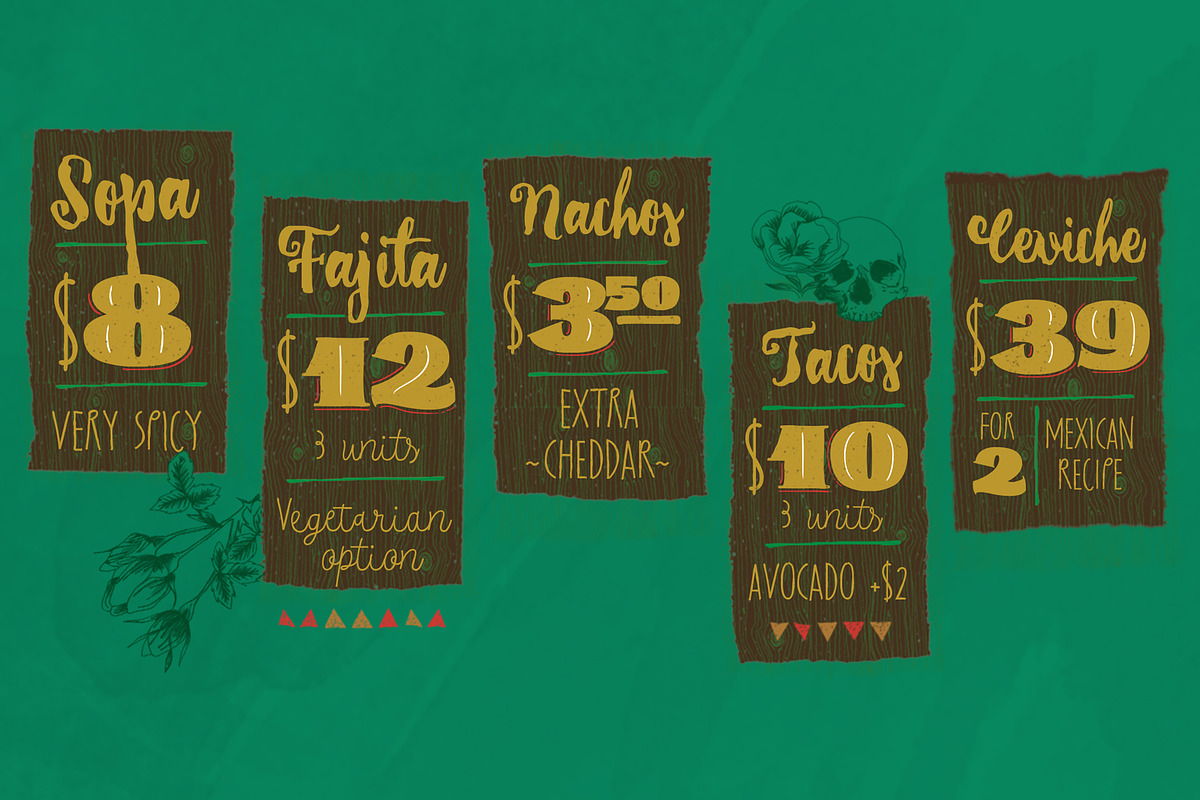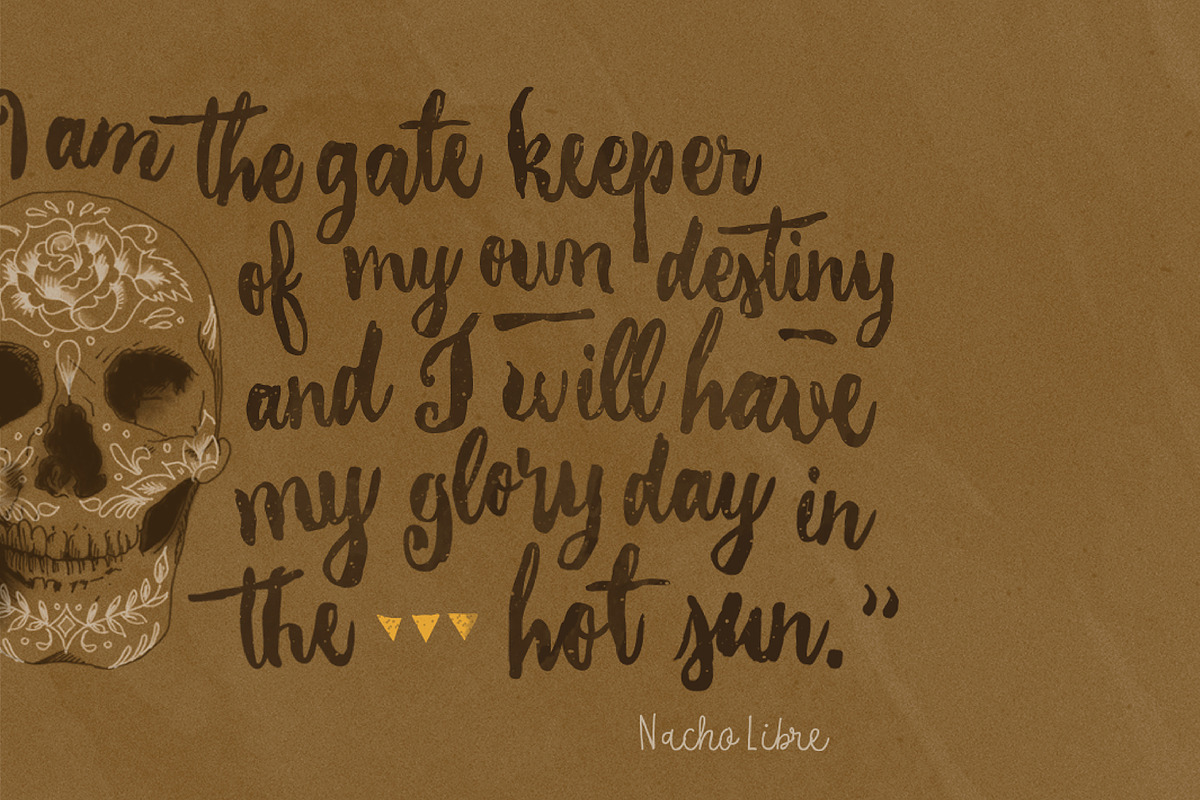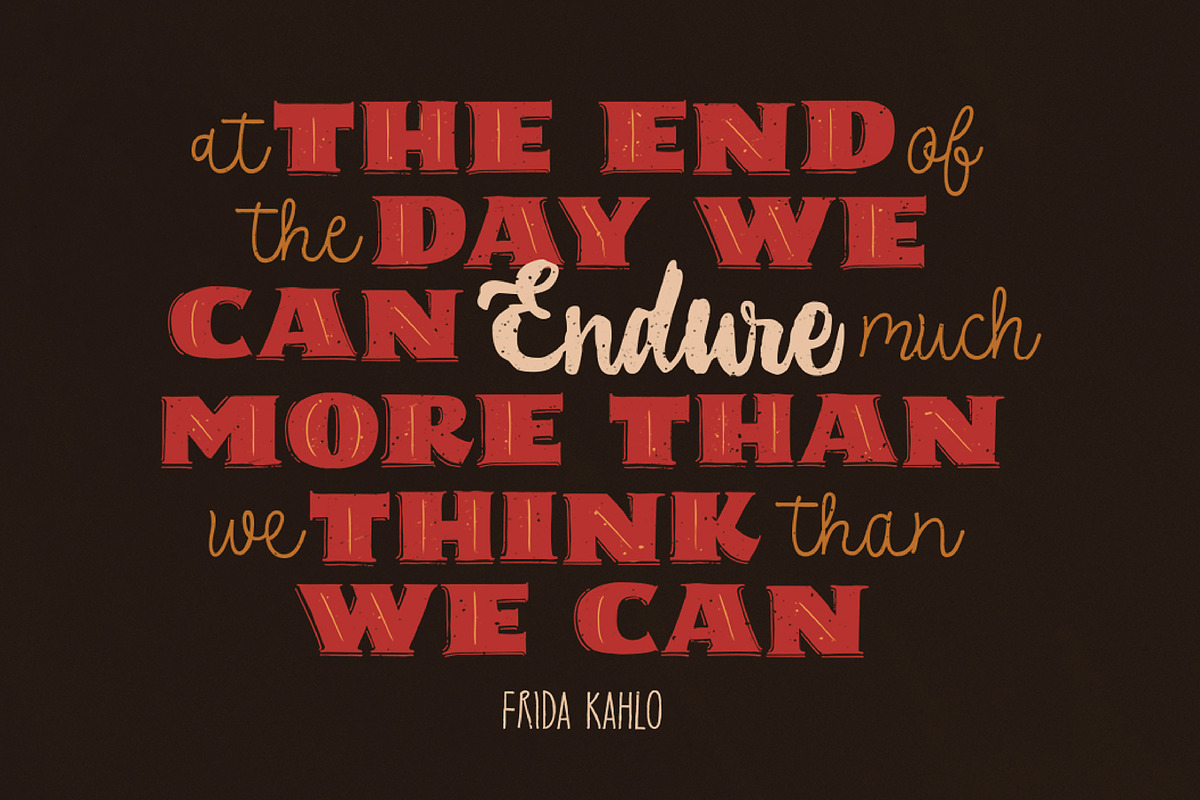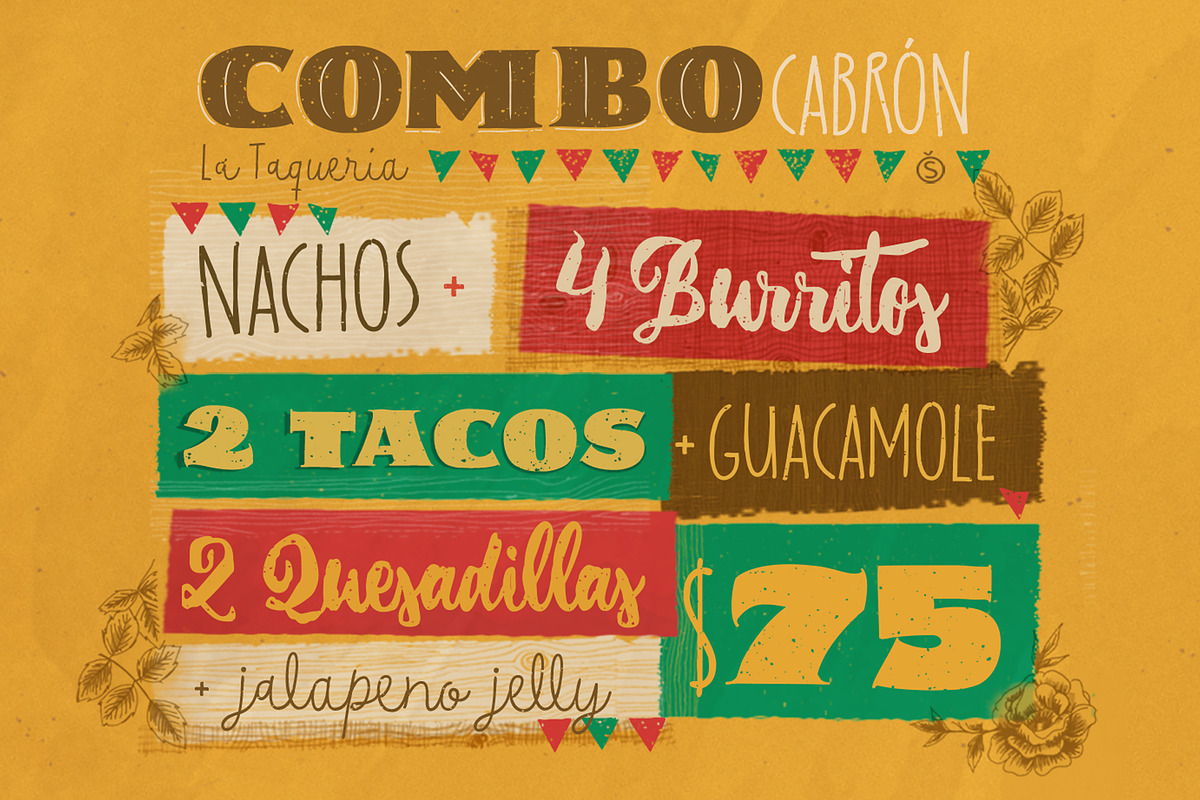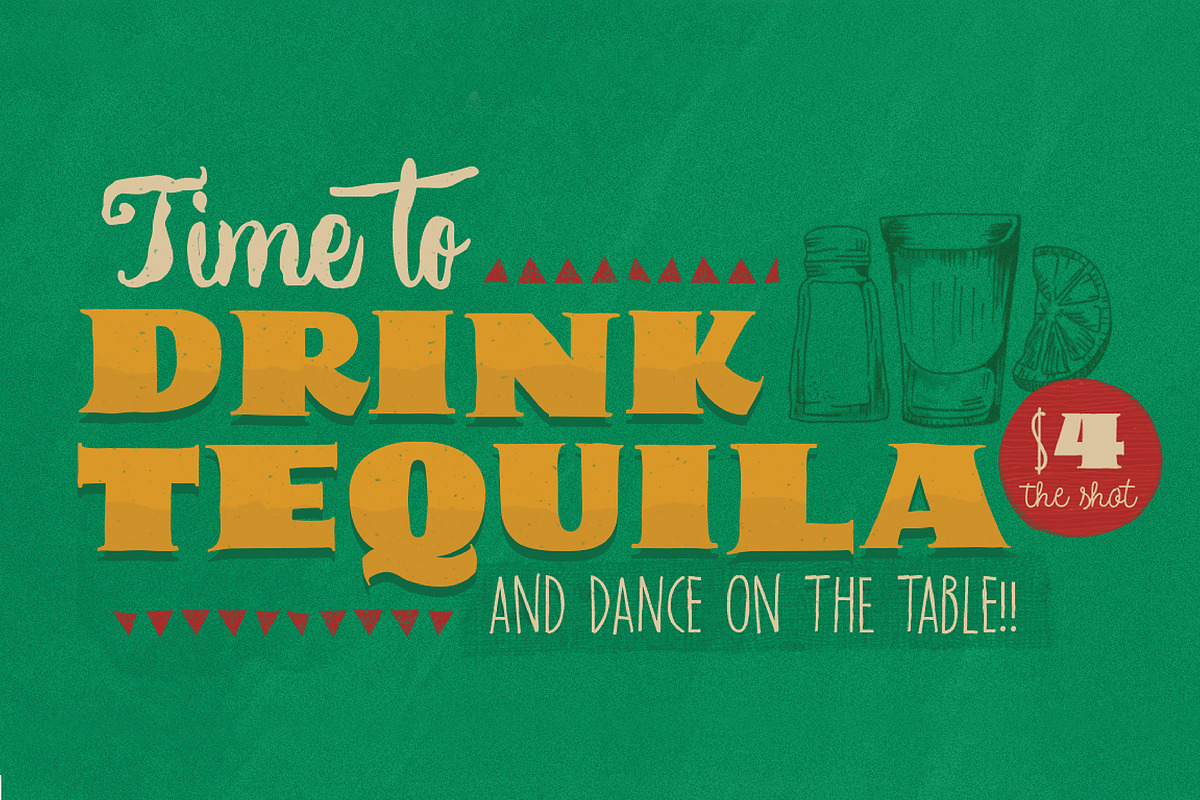
La Taqueria
Mexico’s storied culture is one of the most recognizable today. Its amazing vibrant art and delicious foods have made the leap to influence many parts of the world in recent years. This proud, intense and diverse identity was the inspiration behind La Taqueria, a set of four fonts that express different characteristics of Mexican pop culture. The heavy and spicy, the light and gentle, the constant dynamism, all come together with one rhythm to produce an explosion of personality.
Just like its predecessors Distillery and Scrapbooker, the La Taqueria set contains down-to-earth alphabets perfect for chalkboard art and handmade design. All the fonts include alternates and ligatures, providing plenty of variation for that spontaneous appearance everyone is looking for these days.